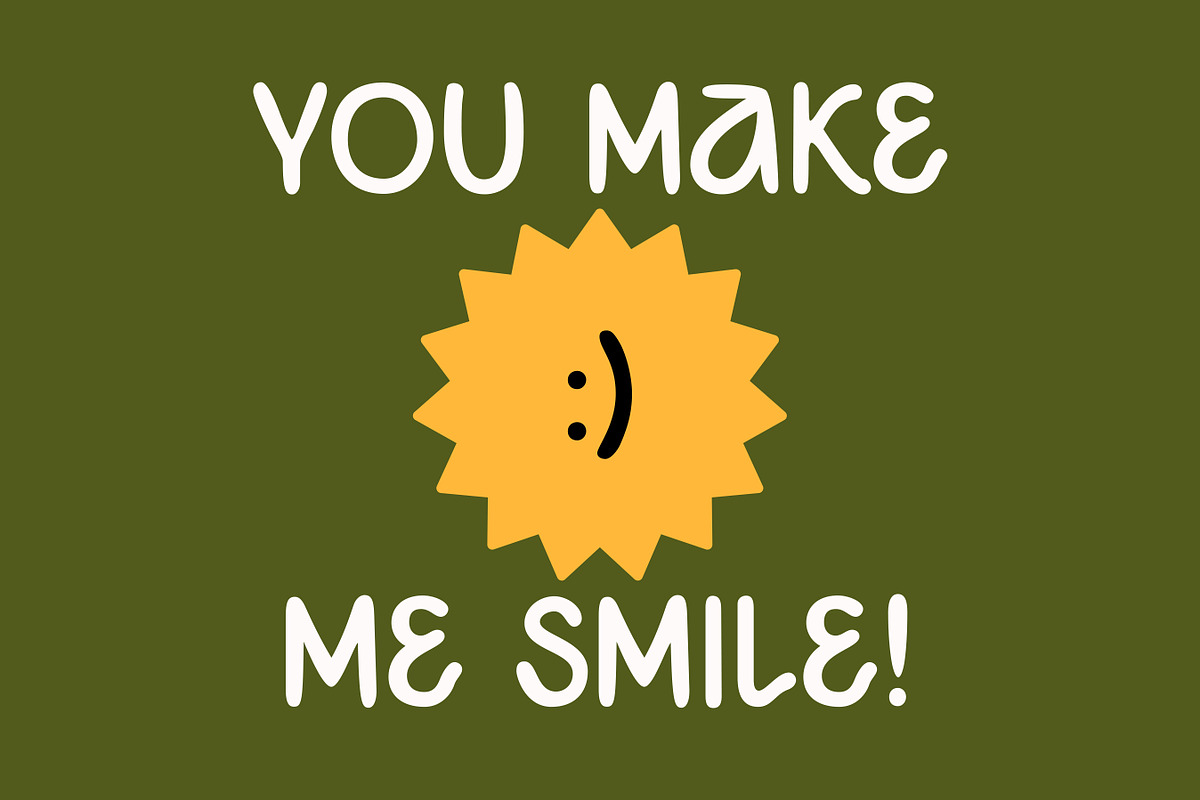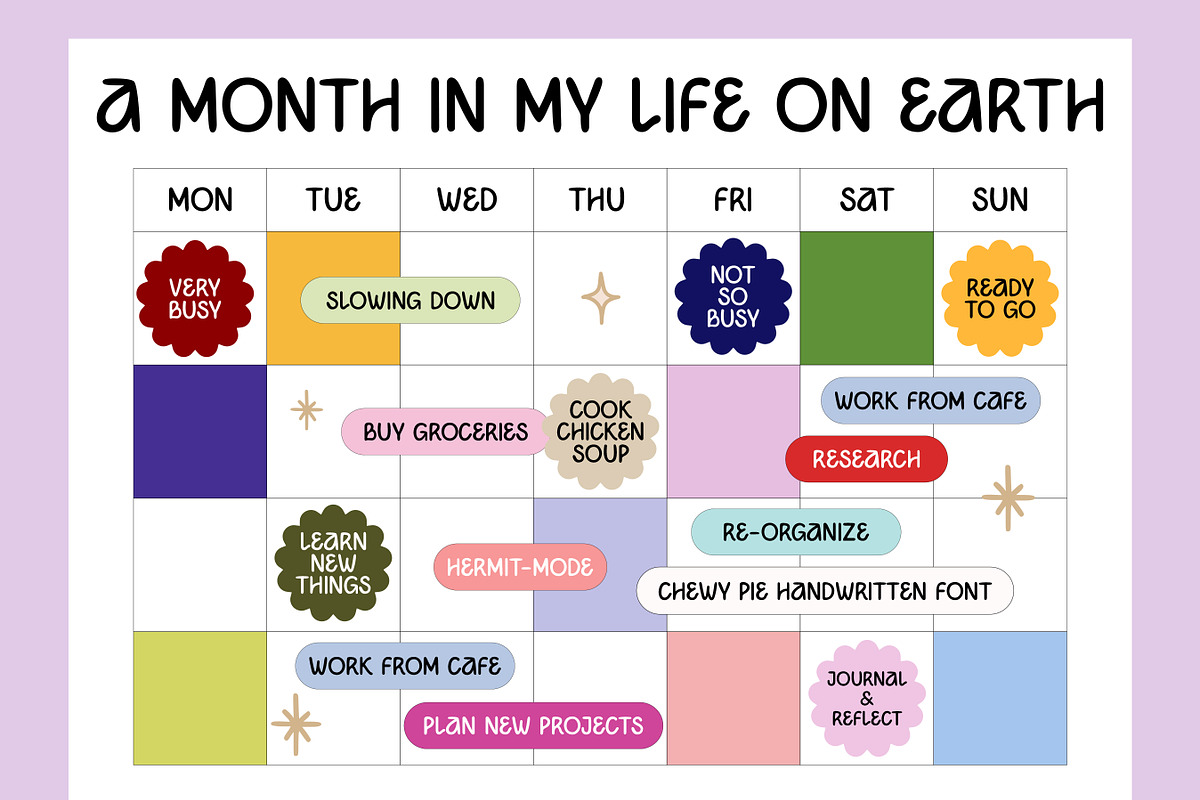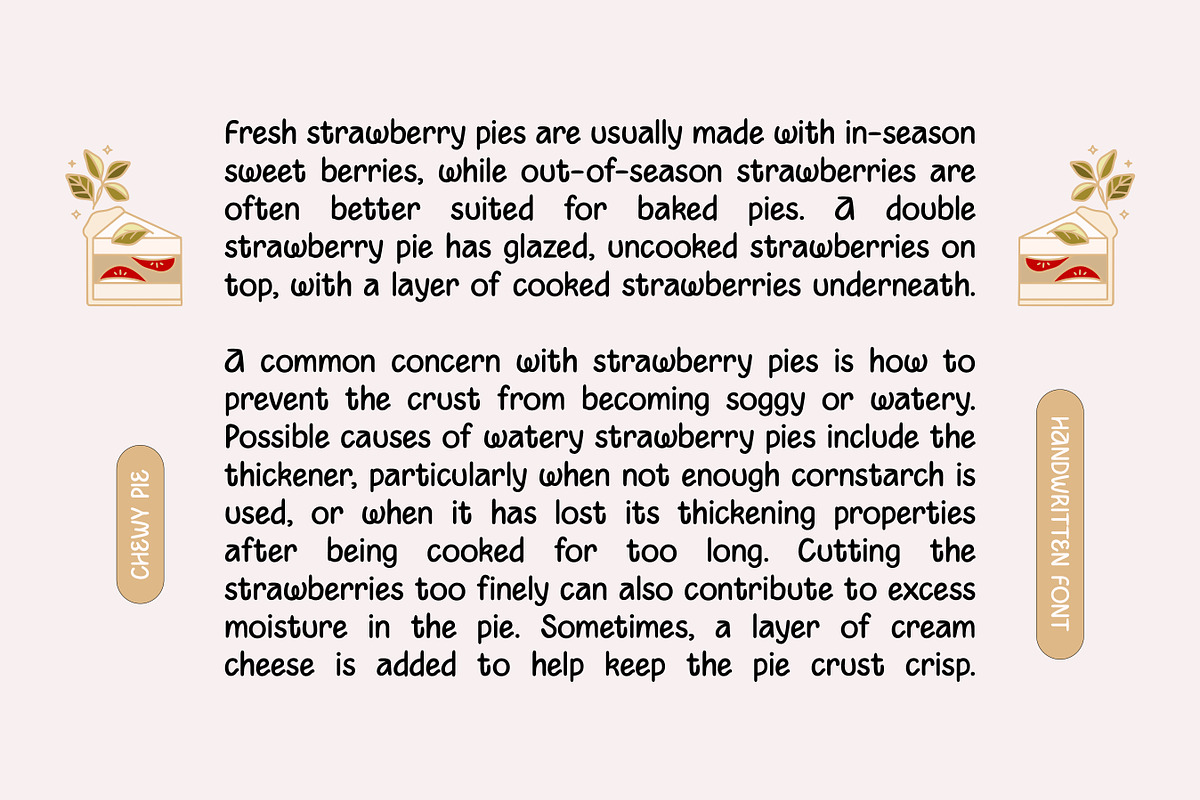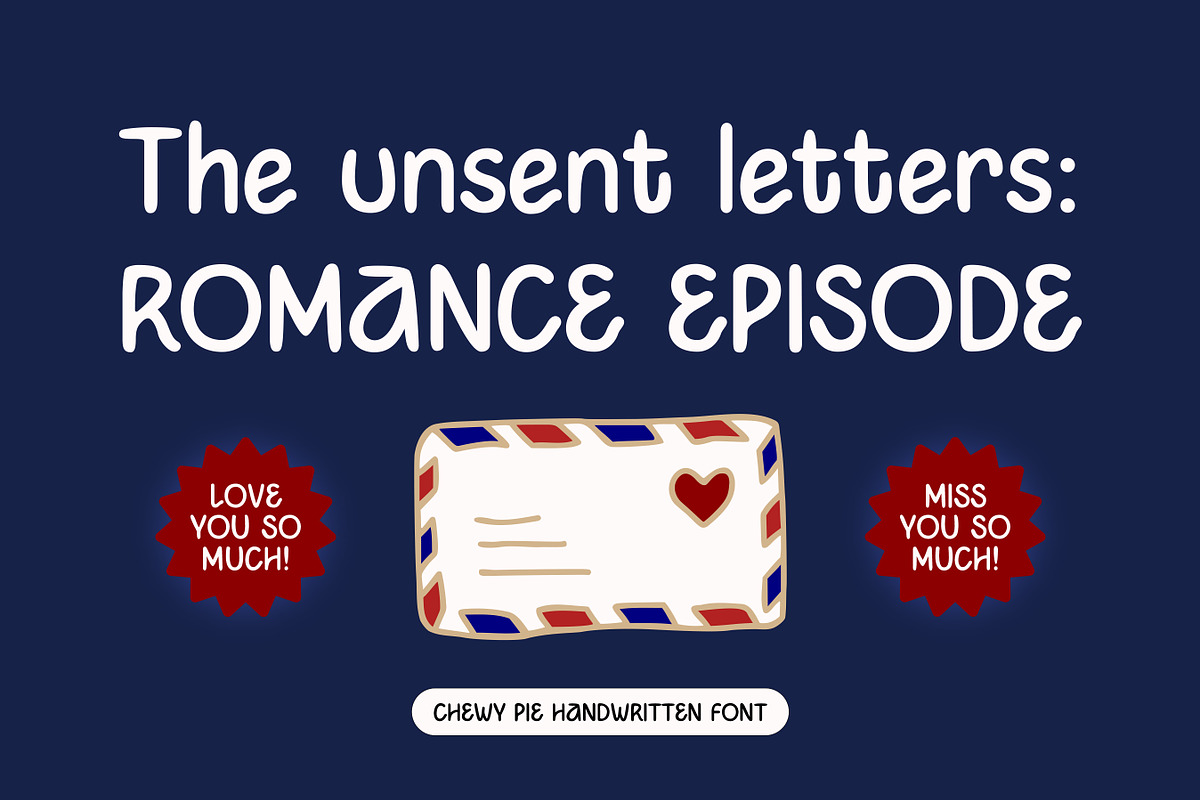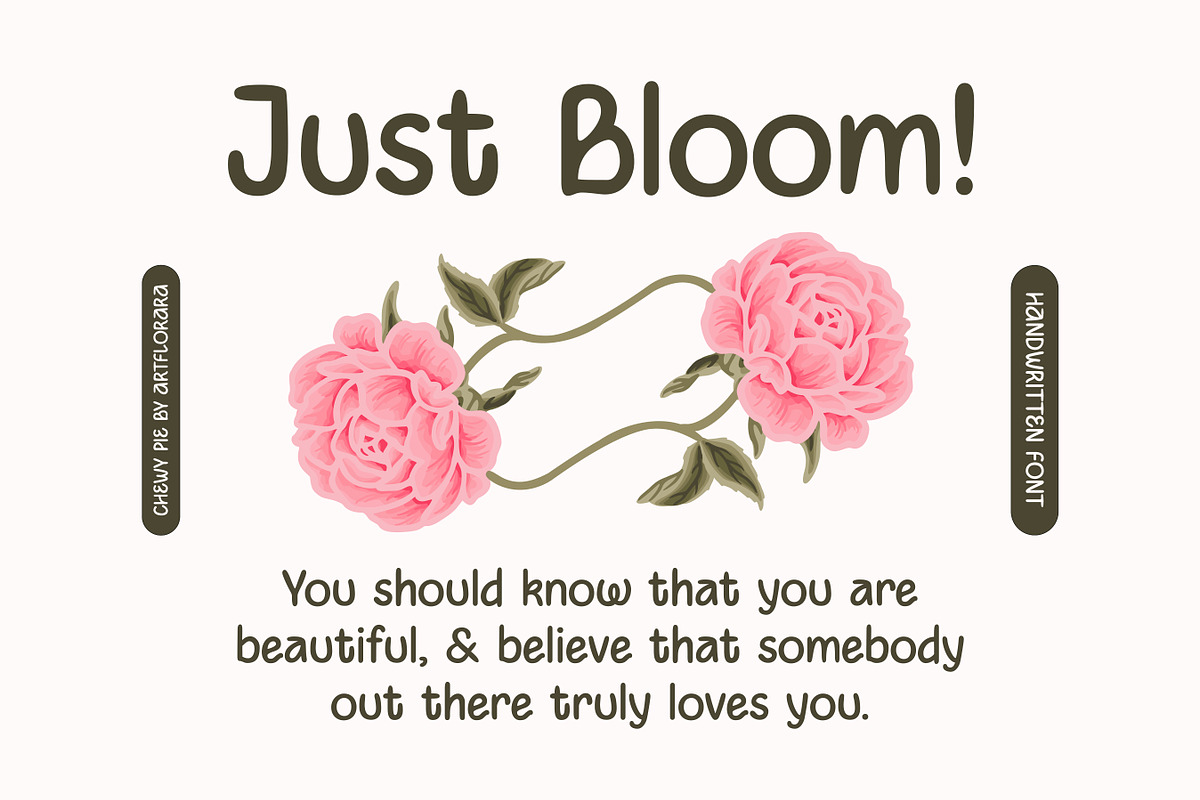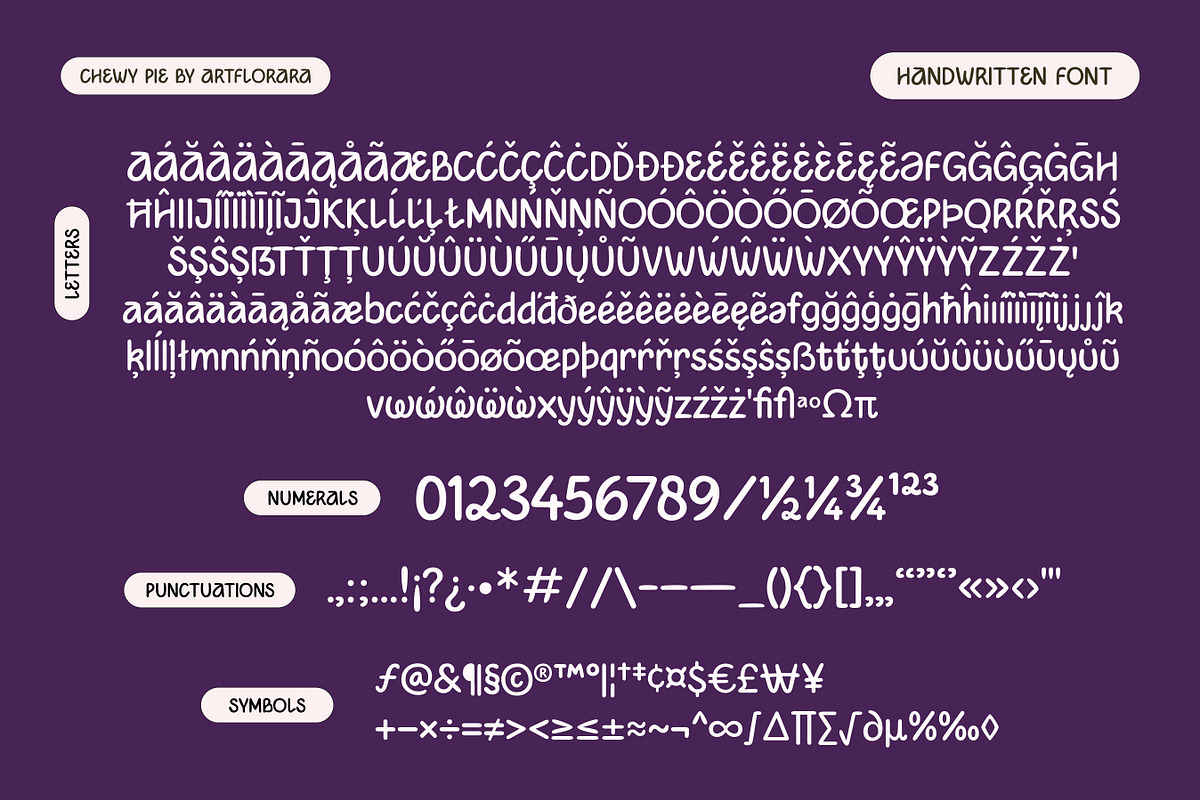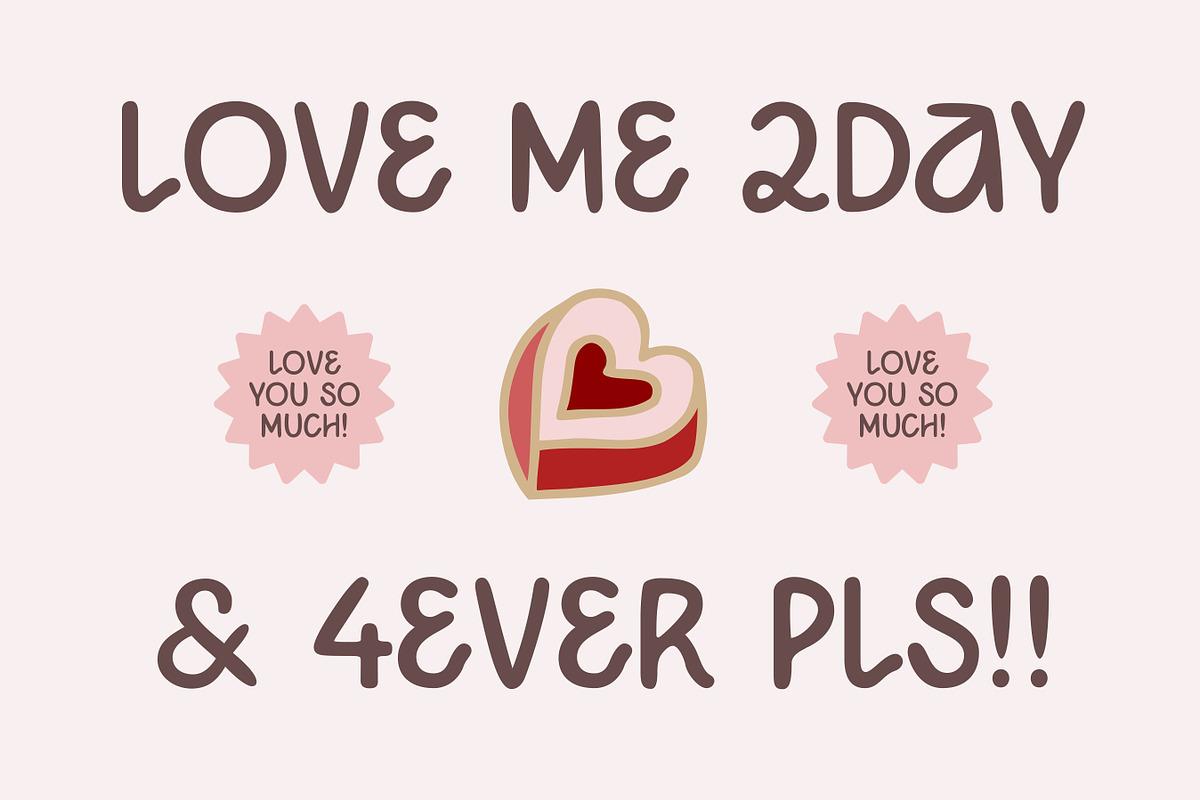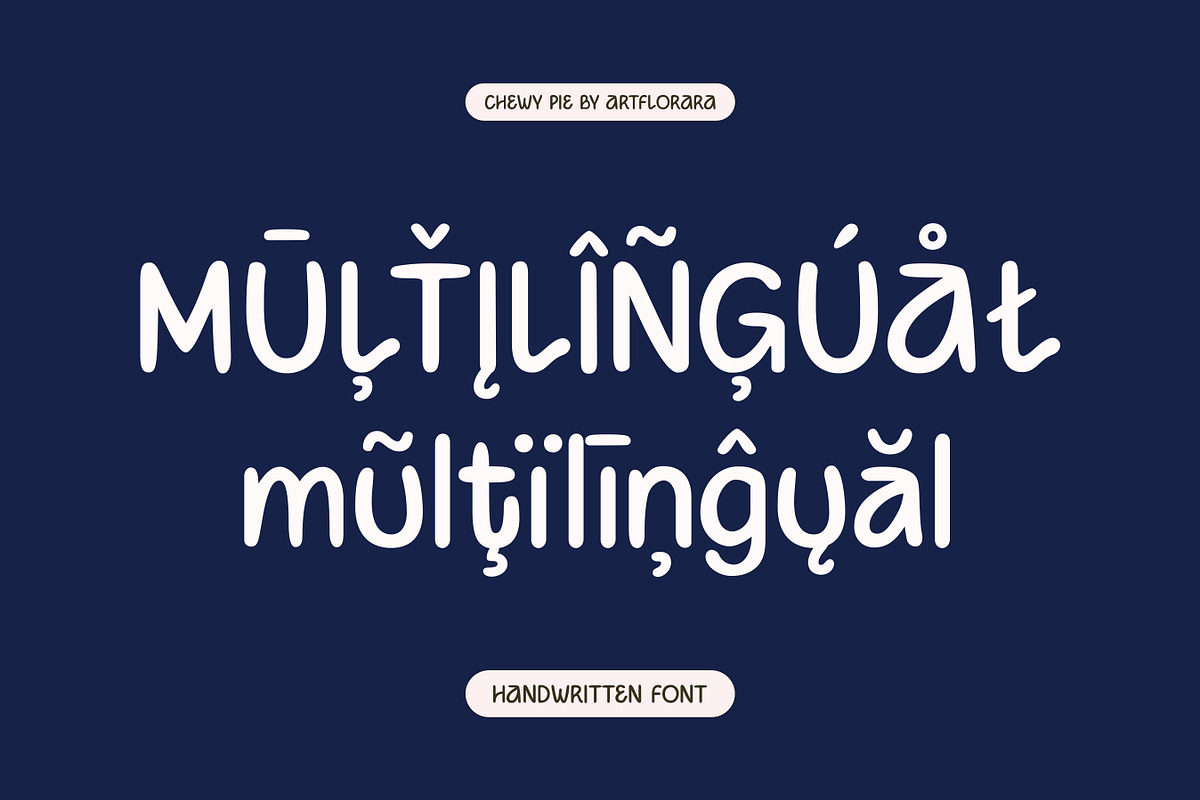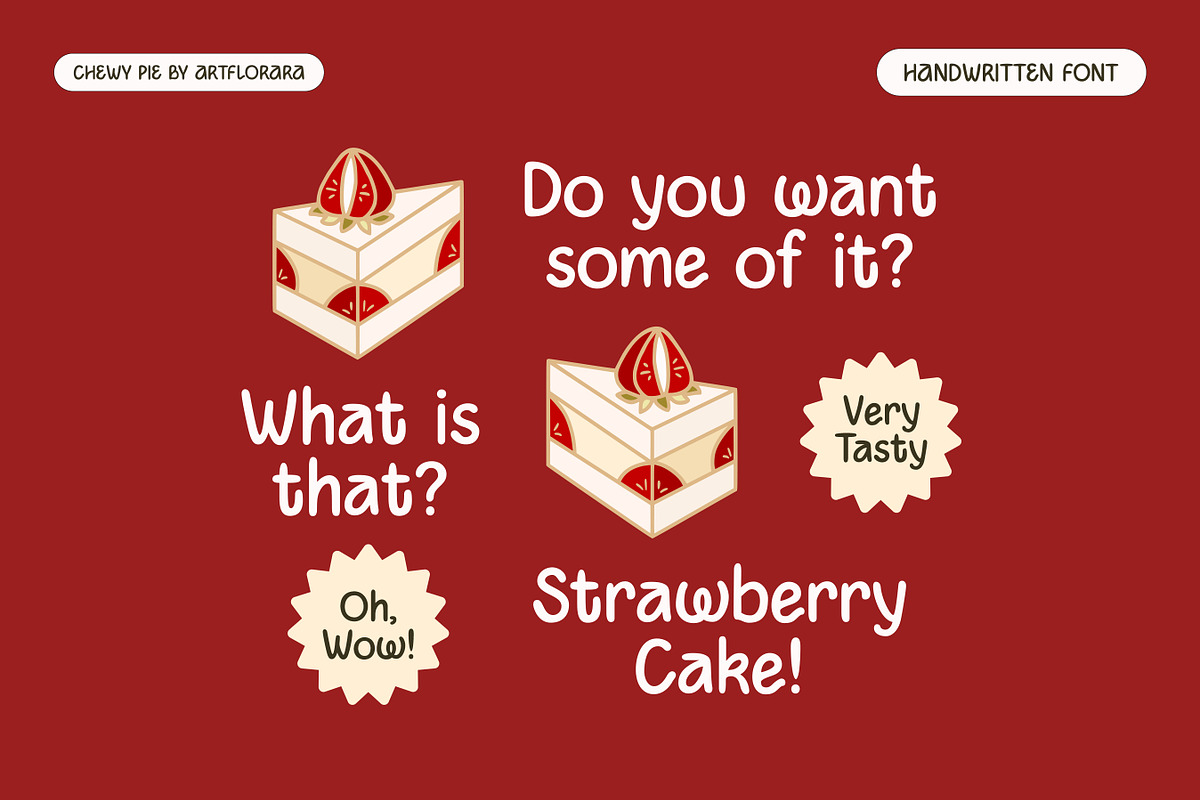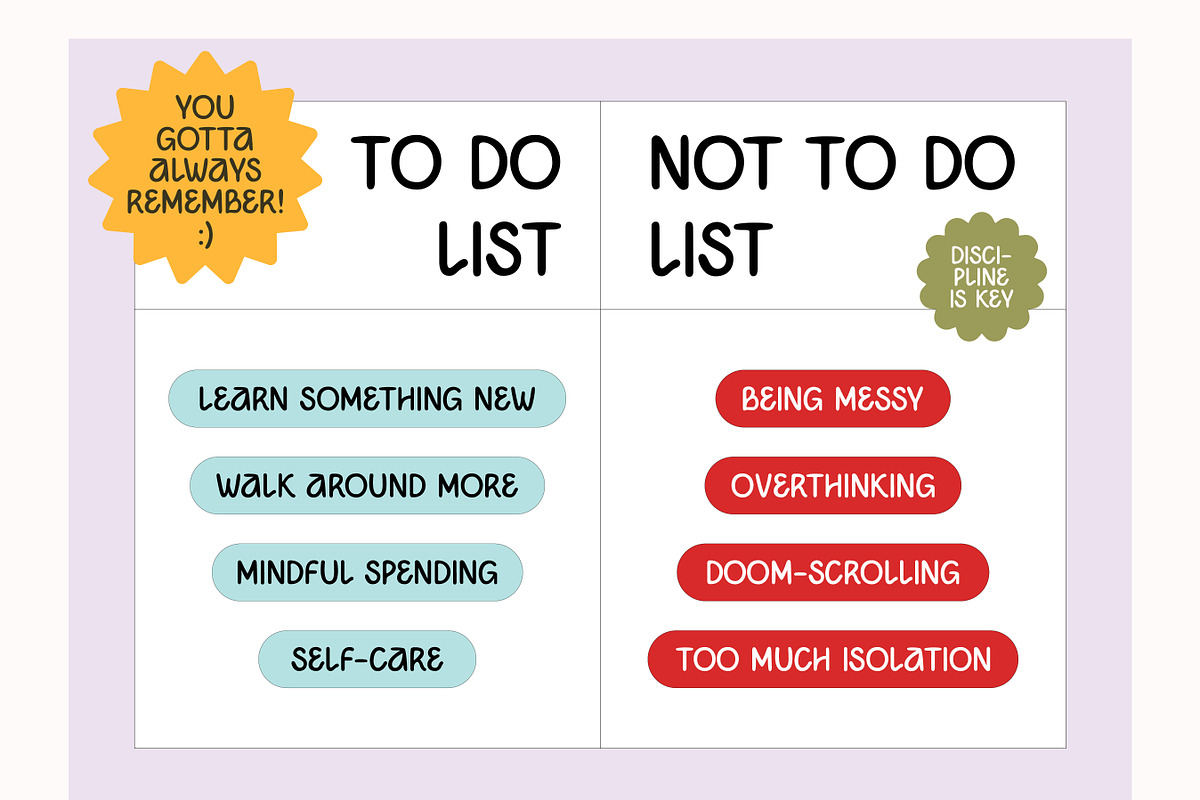
CHEWY PIE - Cute Handwritten Font
Chewy Pie is a handwritten font with playful, childlike vibes. The strokes within the characters give a natural, clean, and friendly quality that embodies simplicity.
Great for social media, portfolio, friendship or romantic letters, poster, branding, digital journaling, quotes, digital diary, personal lifestyle moodboard, youtube vlog thumbnails, cafe menu, recipe, notes, prints, web design, logo design, greeting cards, and other creative projects.
This font features:
lowercase & uppercase characters
multilingual characters
numerals
symbols & punctuations
unique handwritten letterforms